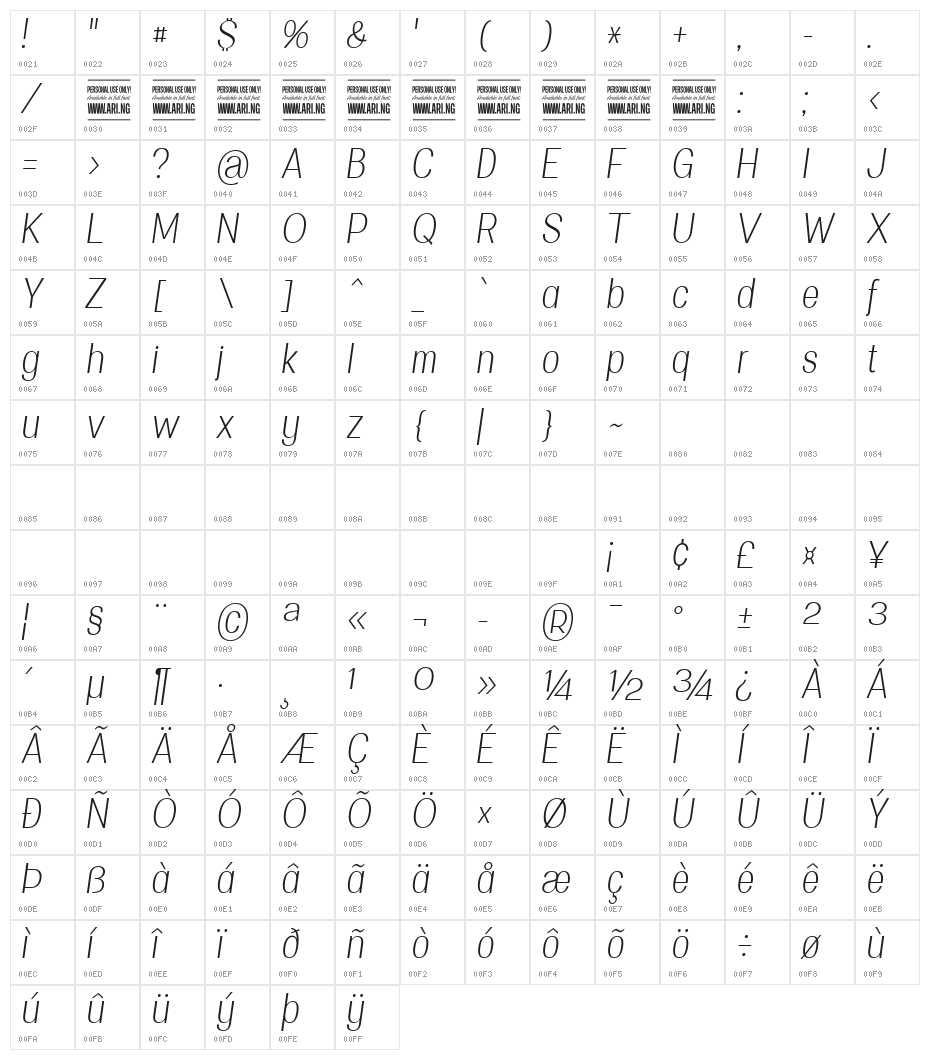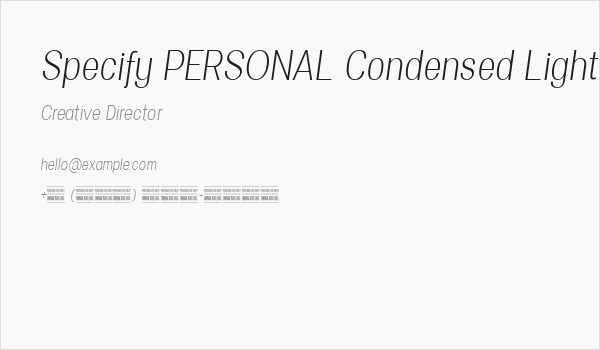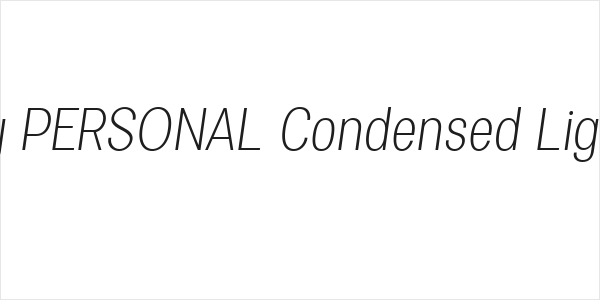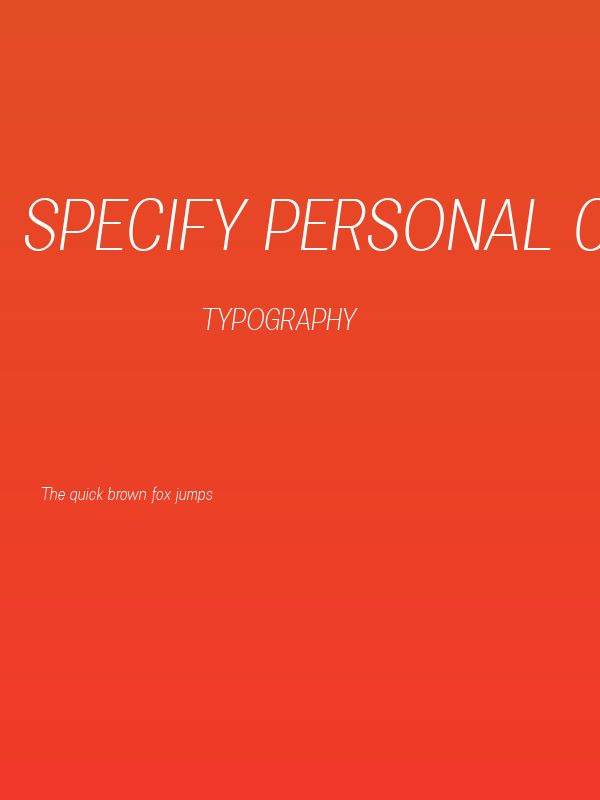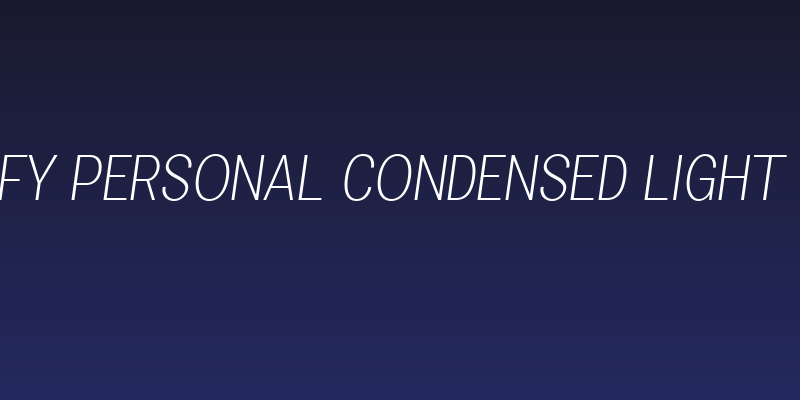
Specify PERSONAL Condensed Light Italic Font
Specify PERSONAL Condensed Light Italic Description
This font features a sleek and modern design with a condensed structure, making it ideal for space-saving applications. The light weight of the strokes gives it an elegant and airy feel, while the italic style adds a dynamic and sophisticated touch. The characters are well-proportioned, with a consistent slant that enhances readability. The font includes a full set of uppercase and lowercase letters, numerals, and a variety of special characters, making it versatile for various design needs. Its clean lines and minimalistic appearance make it suitable for contemporary projects.
| Proposed Projects | Ideal for modern branding, editorial design, fashion magazines, and minimalist websites. |